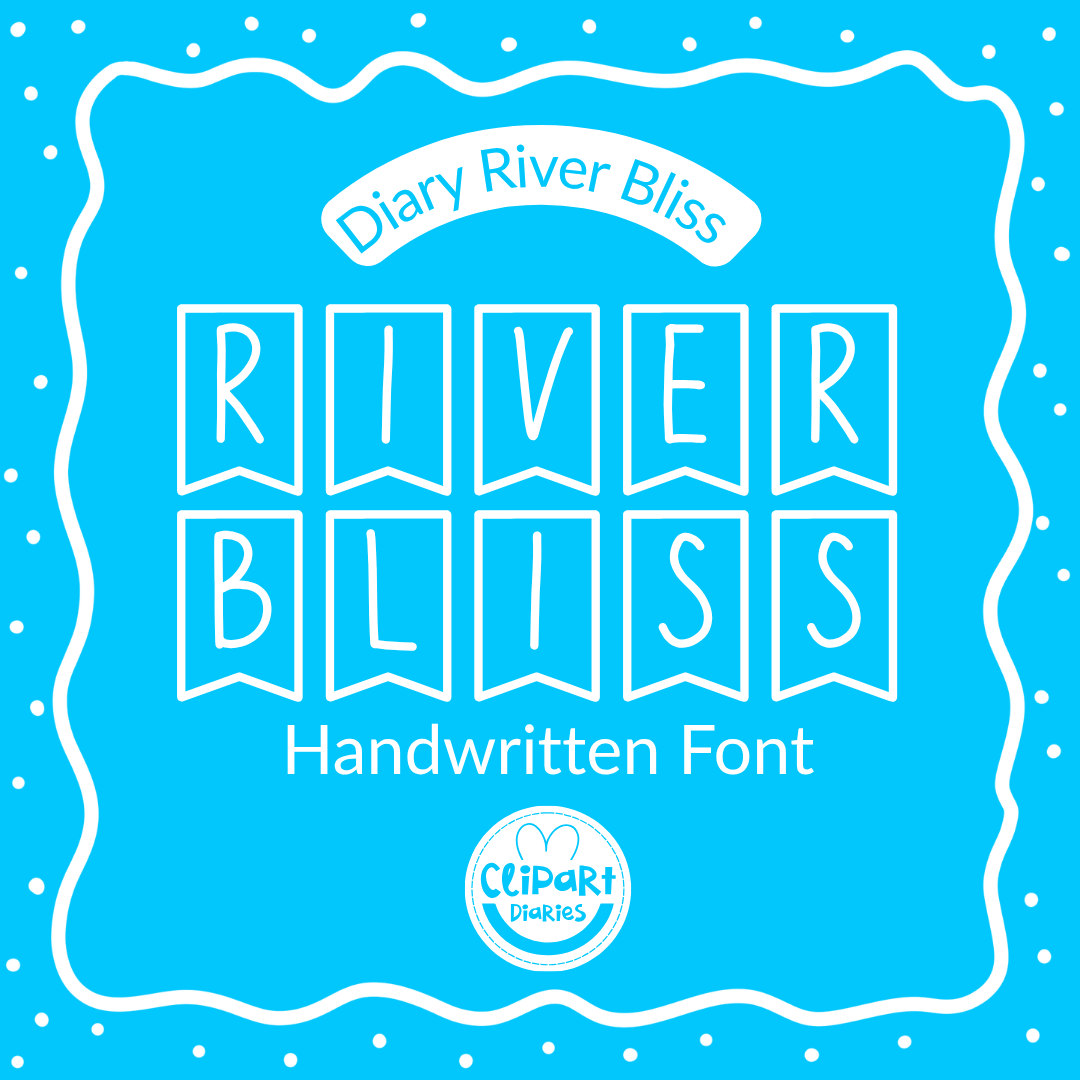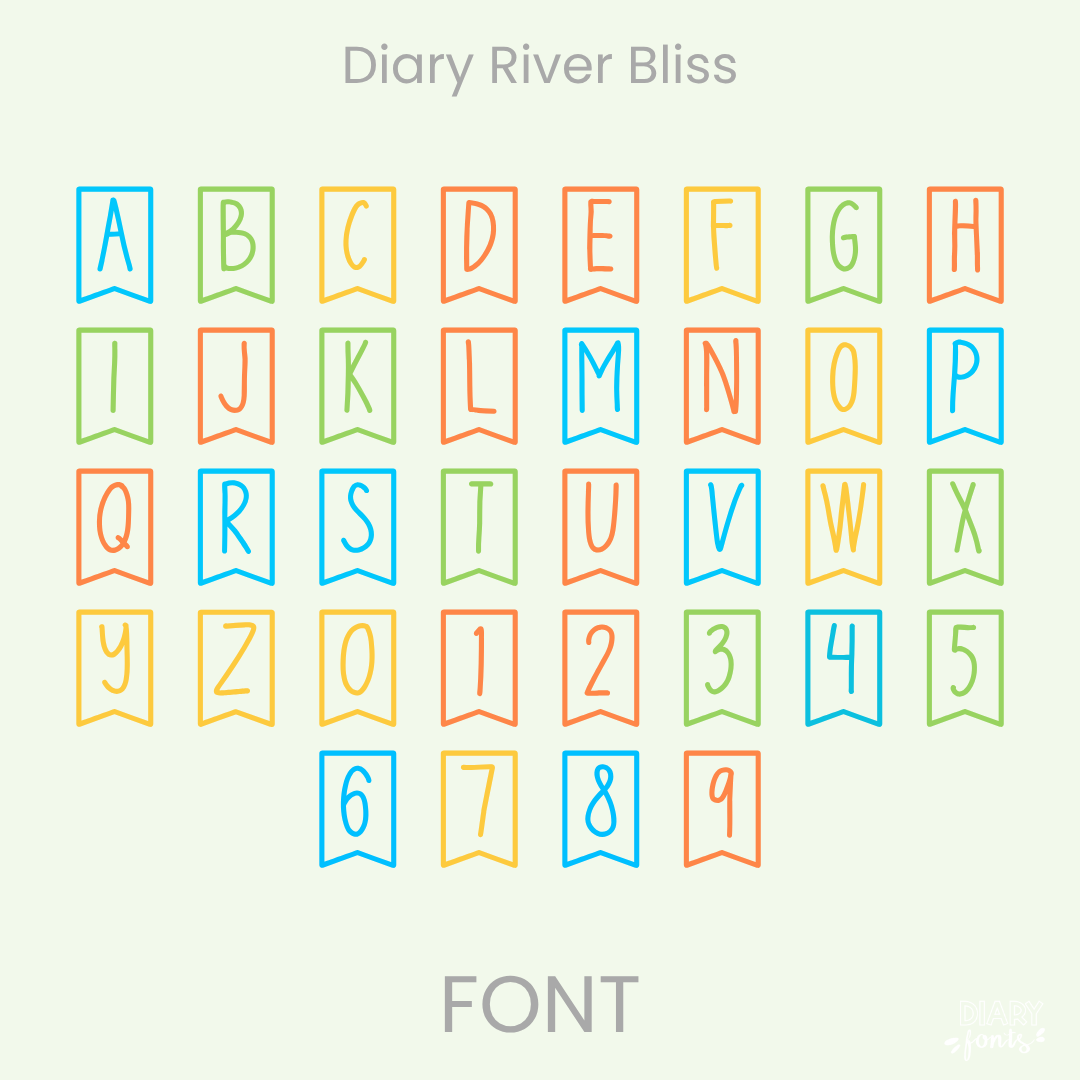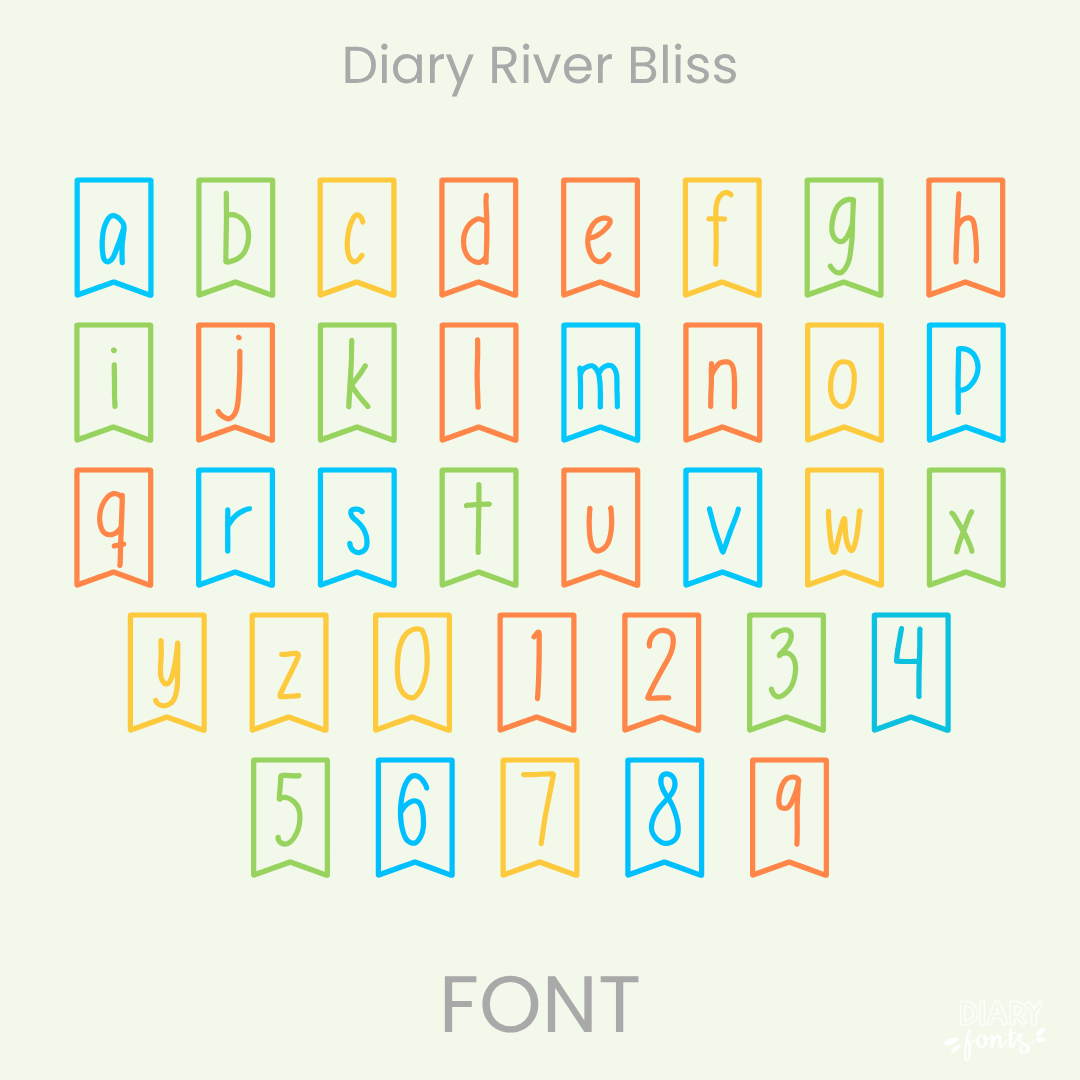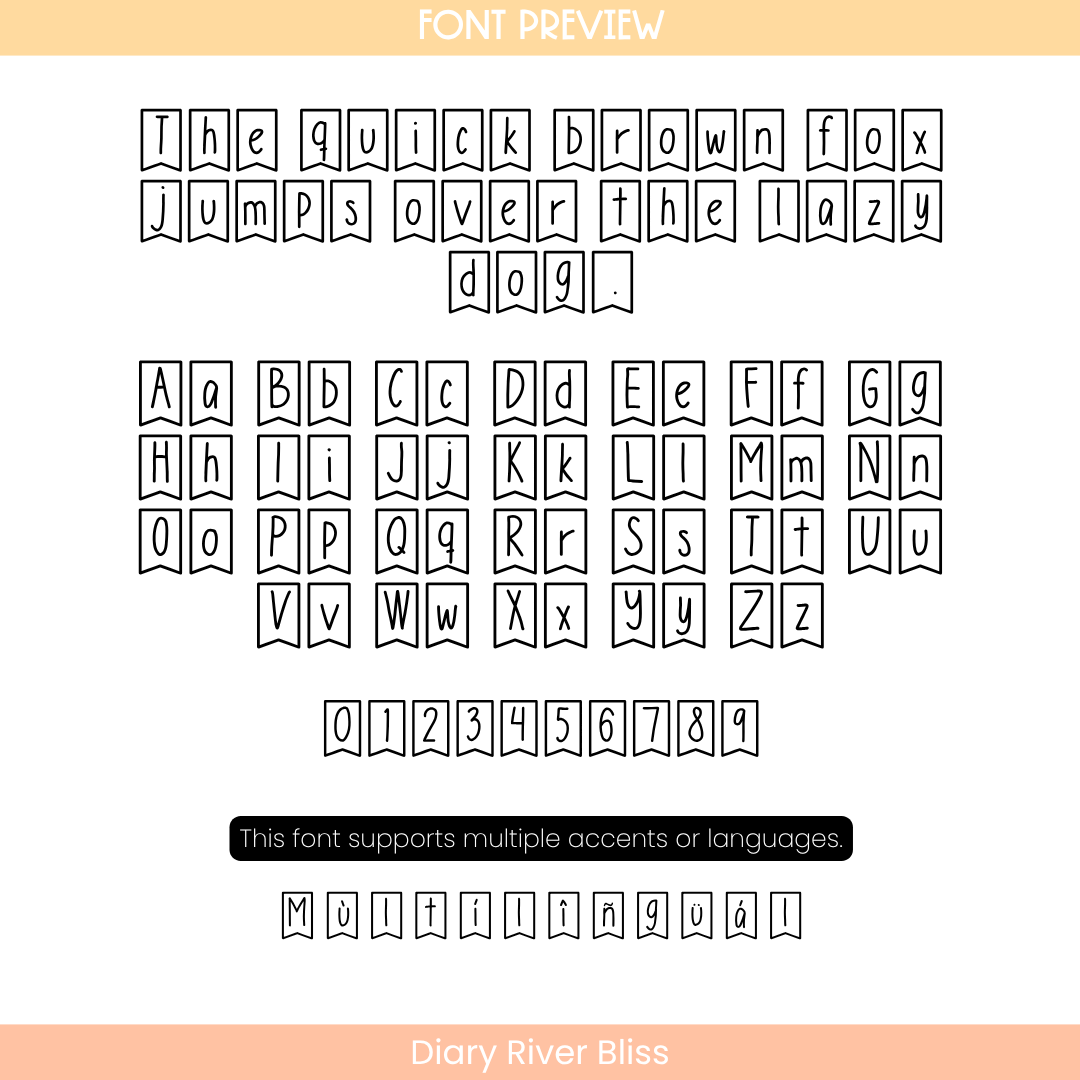
Diary River Bliss is a super fun, hand-drawn banner font featuring individual letters enclosed in cute hanging pennants—perfect for making bulletin board headers and classroom decorations pop!
If you want to bring instant celebration vibes into your classroom resources, Diary River Bliss is going to be your absolute favorite tool. This unique display font features a neat, thin handwritten print where every single letter and number comes framed inside its very own decorative banner flag. The playful, hand-drawn outline of each pennant gives your text a cozy, handmade look while maintaining completely upright letters that are clean and easy for young eyes to read.
It is the perfect choice for creating festive bulletin board titles, standout calendar headers, morning slide greetings, and welcome signs for your classroom door. Inside the download, you’ll get a full set of uppercase and lowercase banner-framed characters, matching numbers, and accented flags for complete multilingual support. It installs in a flash on your computer for immediate use inside Canva, MS Office, and Adobe Apps, and pairs beautifully with Procreate and GoodNotes on your iPad. Whether you’re putting together daily printables for your own students or designing eye-catching premium assets for your online teacher shop, this banner font adds the perfect touch of creative energy to your design toolkit.